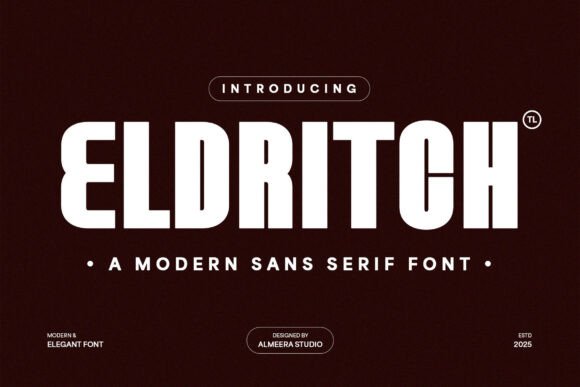
Eldritch Font: Elevate Your Typography with a Captivating Modern Sans Serif
In the realm of typography, a font can make all the difference in how a message is perceived and delivered. For designers seeking a typeface that combines robust strength with an elegant touch, Eldritch emerges as a standout choice. This modern sans serif font is crafted to bring a distinctive character and confident presence to any project, making it perfect for bold branding, expressive headlines, product packaging, and creative editorial designs.
The Essence of Eldritch: A Blend of Strength and Elegance
Eldritch is not just another font; it’s an experience. Its unique design marries the robustness required for impactful messaging with an elegance that elevates any design. Whether you’re working on a brand identity, a magazine spread, or product packaging, Eldritch brings a fresh, contemporary feel that is both powerful and elegantly unique.
Versatility Across Applications
One of the key advantages of Eldritch is its incredible versatility. Its blend of modern aesthetics and clear readability makes it suitable for both digital and print applications. For digital platforms, Eldritch can bring a bold and contemporary feel to website headers, social media posts, and digital advertising. In print, it shines in editorial designs, such as magazine and newspaper headlines, and product packaging, where standing out on shelves is crucial.
Key Features of Eldritch Font
- Modern Sans Serif Design: Eldritch boasts a clean and modern sans serif design that appeals to contemporary tastes while ensuring clarity and readability.
- Robust and Elegant: The font strikes a perfect balance between strength and elegance, making it suitable for a wide range of design applications.
- Distinctive Character: Eldritch’s unique character sets it apart from more generic fonts, offering designers a chance to imbue their projects with a distinctive personality.
- High Versatility: Its adaptability across digital and print mediums makes Eldritch a valuable asset for any designer looking to maintain consistency across various platforms.
Applications of Eldritch Font
Eldritch’s flexibility and distinctive style make it an excellent choice for a variety of design projects. Here are some of the areas where Eldritch truly shines:
- Branding: Use Eldritch to create a bold and memorable brand identity that stands out in the market.
- Headlines and Titles: Its robust yet elegant design makes Eldritch perfect for headlines and titles in magazines, newspapers, and digital publications.
- Product Packaging: Eldritch can help your product packaging stand out on the shelves, conveying a sense of modernity and sophistication.
- Editorial Designs: Bring a fresh and contemporary feel to editorial designs, including magazines, journals, and books, with Eldritch’s unique aesthetic.
Why Choose Eldritch?
In a sea of fonts, Eldritch offers several advantages that make it a compelling choice for designers:
- Uniqueness: Eldritch’s distinctive character ensures your designs stand out from the crowd.
- Versatility: Its suitability for both digital and print applications makes it a versatile tool in any designer’s arsenal.
- Legibility: Despite its bold and modern aesthetic, Eldritch maintains high legibility, ensuring your message is always communicated clearly.
- Elegance: Eldritch brings an elegant touch to any design, elevating the overall aesthetic and impact.
Eldritch is more than just a font; it’s a design statement. Its unique blend of robust strength and elegant sophistication makes it an invaluable tool for designers looking to make an impact. Whether you’re crafting a brand identity, designing a magazine spread, or creating product packaging, Eldritch offers the versatility and distinctive character needed to elevate your typography. By choosing Eldritch, you’re not just selecting a font; you’re embracing a design philosophy that values clarity, elegance, and impact. Elevate your designs with Eldritch, and discover a new dimension of typographic excellence.